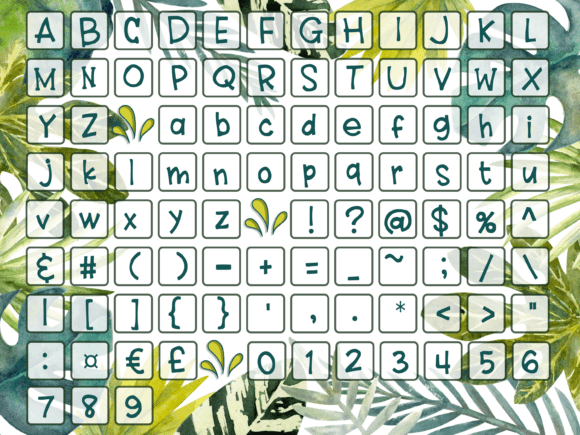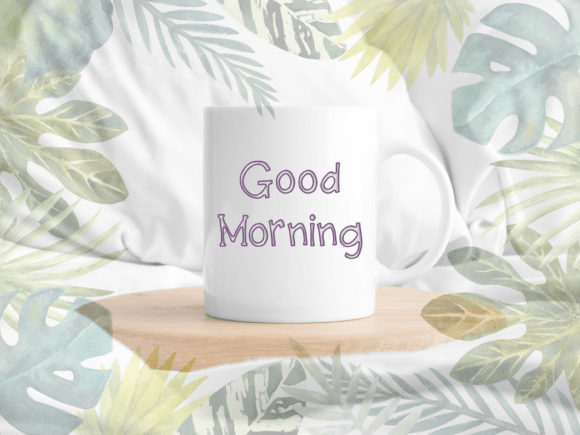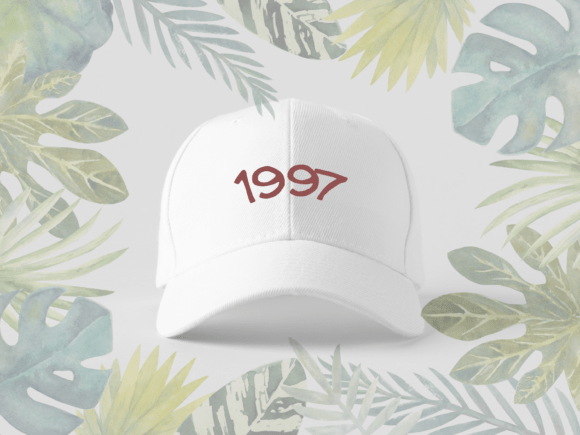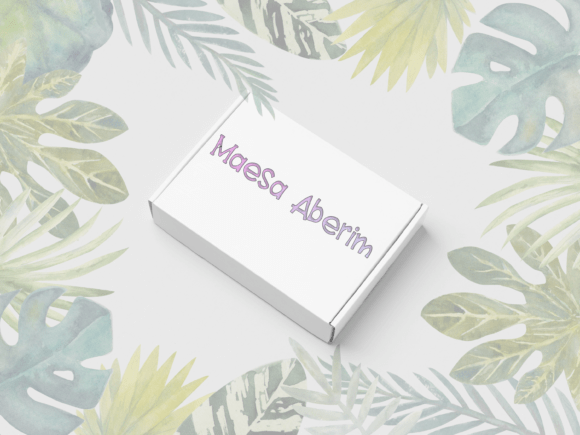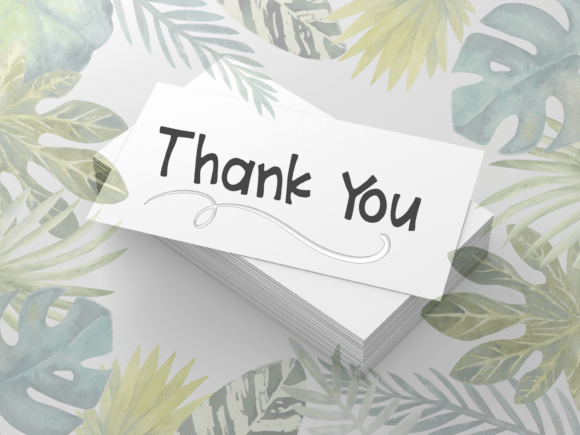
Unleash Your Creativity with Artiscribe Font: The Ultimate Typeface for Designers and Crafters
Are you a designer, crafter, or DIY enthusiast looking for a font that can elevate your projects to the next level? Look no further than Artiscribe Font, a stylish and artistic typeface that’s perfect for logos, branding, invitations, packaging, and social media designs. With its elegant and creative look, this font adds a unique touch to posters, marketing materials, and more.
What Makes Artiscribe Font Stand Out?
Artiscribe Font is not just another ordinary font. It’s a professionally crafted typeface that’s designed to help you create stunning visual content. Here are some of its key features:
- High-quality, professionally crafted glyphs: Artiscribe Font features high-quality glyphs that are carefully designed to ensure that your text looks elegant and sophisticated.
- Perfect for both print and digital designs: Whether you’re creating print materials like brochures, posters, and business cards, or digital content like social media graphics and website headers, Artiscribe Font is the perfect choice.
Why Choose Artiscribe Font for Your Design Projects?
There are many reasons why Artiscribe Font is the perfect choice for designers and crafters. Here are a few:
- Add a unique touch to your designs: With its elegant and creative look, Artiscribe Font adds a unique touch to your designs, setting them apart from the rest.
- Elevate your brand with a professional look: If you’re a business owner or marketer, Artiscribe Font can help you elevate your brand with a professional look that’s sure to impress.
- Perfect for creative projects: Whether you’re working on a creative project like a logo, invitation, or packaging design, Artiscribe Font is the perfect choice.
Artiscribe Font is a stylish and artistic typeface that’s perfect for designers, crafters, and DIY enthusiasts. With its elegant and creative look, this font adds a unique touch to logos, branding, invitations, packaging, and social media designs. Its high-quality glyphs, compatibility with popular design software, and ease of use make it the perfect choice for a wide range of design projects. So why wait? Download Artiscribe Font today and elevate your projects with a fresh, artistic touch!